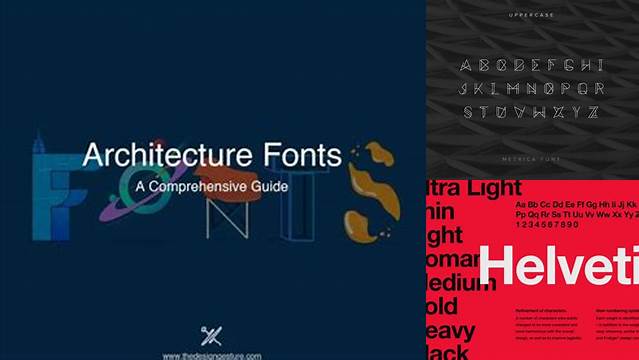
Best Architecture Fonts: Design Guide
Hey guys! Are you ready to dive deep into the world of architecture fonts design? Choosing the right font is crucial for conveying the spirit and intent behind architectural concepts. Whether you're drafting blueprints, creating presentations, or designing marketing materials, the font you select speaks volumes. So, let’s explore how to pick the perfect typeface to represent your architectural vision.
1. Understanding the Role of Fonts in Architectural Design
Architecture fonts design plays a pivotal role in shaping the perception of any architectural project. Think about it: the font you use influences how people interpret the design's stability, modernity, and overall aesthetic. A well-chosen font enhances the visual appeal, while a poorly chosen one can undermine even the most brilliant designs. When selecting architecture fonts design, consider the project's specific requirements and target audience. For example, fonts used for historical renovations will differ significantly from those used for contemporary skyscrapers. The goal is to create a cohesive visual narrative that complements the architectural design and reinforces its underlying message. Remember, your font choices contribute to the overall brand and professionalism, making them an essential aspect of effective communication. When in doubt, consider getting feedback from designers or architects to ensure your architecture fonts design selection aligns with the project’s goals and intended impact. This collaborative approach often leads to better-informed and more impactful decisions, ultimately enhancing the visual presentation of your architectural work.
2. Modern Fonts for Contemporary Architecture
When it comes to architecture fonts design for contemporary buildings, modern fonts are often the go-to choice. These fonts are characterized by their clean lines, geometric shapes, and minimalist aesthetics, reflecting the sleek and innovative nature of modern architectural designs. Opting for a modern font helps reinforce the forward-thinking approach of contemporary architecture, creating a cohesive and visually appealing presentation. When selecting a architecture fonts design, consider how the font interacts with the building's structural elements, such as glass facades, steel beams, and open floor plans. A well-chosen modern font will complement these features, enhancing the overall sense of modernity and sophistication. Popular choices include sans-serif fonts like Helvetica, Futura, and Open Sans, which are known for their legibility and versatility. These fonts work well across various applications, from architectural renderings and presentations to signage and marketing materials. To add a unique touch, experiment with different font weights and styles, such as bold or italic, to create visual interest and emphasize key information. Always ensure the architecture fonts design remains consistent throughout the project to maintain a professional and cohesive image. This attention to detail ensures the font enhances the architectural design rather than detracting from it.
3. Classic Fonts for Historical Architecture
For projects centered around historical architecture, selecting the right architecture fonts design is essential to honor the building's heritage and aesthetic. Classic fonts, characterized by their timeless elegance and traditional serifs, are often the preferred choice. These fonts evoke a sense of history and sophistication, perfectly complementing the intricate details and ornate designs typically found in historical buildings. In architecture fonts design for historical projects, consider fonts like Times New Roman, Garamond, and Baskerville. These typefaces have a long-standing reputation for readability and visual appeal, making them ideal for conveying the historical significance of the building. When choosing a font, ensure it aligns with the specific period and style of the architecture. For example, a font reminiscent of calligraphy may be suitable for a Renaissance-era building, while a more structured serif font could work well for a Georgian-style structure. The right architecture fonts design can enhance the storytelling aspect of the project, bringing attention to its rich history and cultural significance. Moreover, maintaining consistency in font usage across all project materials reinforces the authenticity and historical integrity of the architectural design. Remember, the goal is to create a visual narrative that respects and celebrates the building's past, making the font a crucial element in preserving its legacy.
4. Sans-Serif Fonts in Architecture
Architecture fonts design often leans heavily on sans-serif fonts due to their clean, modern appearance and excellent readability. These fonts, lacking the small decorative strokes (serifs) found in traditional typefaces, offer a streamlined look that complements contemporary architectural styles. Sans-serif fonts are versatile and work well in a variety of applications, from digital presentations to printed materials. When selecting architecture fonts design with sans-serif fonts, consider the overall aesthetic you want to convey. Fonts like Helvetica, Arial, and Open Sans are popular choices for their neutrality and clarity. These fonts are easy to read at various sizes, making them suitable for both headlines and body text. Additionally, sans-serif fonts can evoke a sense of professionalism and efficiency, aligning well with the functional aspects of architectural design. Experiment with different weights and styles within the same font family to create visual hierarchy and emphasize key information. For example, using a bold sans-serif font for headings can draw attention to important sections of a document, while a lighter weight can be used for body text to maintain readability. The key is to ensure the architecture fonts design remains consistent throughout the project, providing a cohesive and visually appealing experience for the audience. By carefully selecting and implementing sans-serif fonts, you can enhance the overall impact of your architectural presentations and marketing materials.
5. Serif Fonts in Architecture
While sans-serif fonts are popular in modern architecture fonts design, serif fonts have a place too, especially when aiming for a classic or traditional feel. Serif fonts, characterized by the small decorative strokes at the end of each letter, add a touch of elegance and formality that can be perfect for certain architectural presentations. Choosing the right architecture fonts design with serifs involves considering the project’s tone and audience. Serif fonts like Times New Roman, Garamond, and Georgia are often associated with sophistication and reliability, making them suitable for projects that require a sense of history or authority. When using serif fonts, pay close attention to readability. While they can look beautiful, they may not be as legible as sans-serif fonts at smaller sizes or on digital screens. Therefore, it’s important to select a font that remains clear and easy to read, even in challenging conditions. Also, think about how the font complements the overall design. A well-chosen serif font can enhance the visual appeal of architectural drawings, presentations, and marketing materials, providing a polished and professional look. The key is to ensure the architecture fonts design aligns with the project’s goals and target audience, creating a cohesive and visually appealing message. By carefully considering these factors, you can effectively use serif fonts to add a touch of class and tradition to your architectural presentations.
6. Display Fonts for Architectural Presentations
In architecture fonts design, display fonts serve as the attention-grabbers, ideal for headings, titles, and other prominent elements in presentations. These fonts are designed to be eye-catching and visually engaging, helping to draw the audience's attention to key information. When selecting architecture fonts design with display fonts, consider the overall aesthetic you want to convey. Display fonts come in a wide range of styles, from bold and modern to elegant and traditional, allowing you to tailor the font to the specific project. It’s crucial to use display fonts sparingly to avoid overwhelming the design. Overusing decorative fonts can make the presentation look cluttered and unprofessional. Instead, focus on using them strategically to highlight important information and create visual interest. When choosing a display font, ensure it complements the other fonts used in the presentation. A harmonious combination of fonts can enhance the overall aesthetic and improve readability. For example, pairing a bold display font with a simple sans-serif font for body text can create a balanced and visually appealing design. The goal of architecture fonts design with display fonts is to create a lasting impression and effectively communicate your message. By carefully selecting and implementing display fonts, you can enhance the visual impact of your architectural presentations and leave a memorable impression on your audience.
7. Narrow Fonts for Space-Saving Designs
Architecture fonts design sometimes demands clever use of space, and that's where narrow fonts come in handy. These fonts, also known as condensed fonts, are designed to fit more text into a smaller area without sacrificing readability. They are particularly useful in architectural drawings, diagrams, and other visual materials where space is limited. When choosing architecture fonts design with narrow fonts, consider factors like legibility and overall aesthetic. While narrow fonts can be a great solution for saving space, they can also be harder to read if not chosen carefully. Look for fonts that maintain a clear and balanced letterform, even when condensed. Popular choices include narrow versions of well-known fonts like Arial, Helvetica, and Roboto. These fonts are designed to be readable at various sizes and in different contexts. When implementing narrow fonts, pay attention to kerning and letter spacing. Adjusting these settings can improve readability and prevent the text from looking cramped. Also, consider the overall design of the document. Narrow fonts can create a sense of efficiency and modernity, but they should be used sparingly to avoid overwhelming the design. The key to successful architecture fonts design with narrow fonts is to balance space-saving with readability. By carefully selecting and implementing narrow fonts, you can create visually appealing and informative architectural materials that make the most of limited space.
8. Bold Fonts for Emphasis in Architecture
In architecture fonts design, bold fonts are your go-to for making a statement and emphasizing key information. These fonts, with their heavier strokes, draw the eye and create a strong visual impact, perfect for headings, titles, and important callouts in architectural presentations. When selecting architecture fonts design with bold fonts, consider the overall hierarchy of your design. Bold fonts are most effective when used sparingly to highlight specific elements and guide the viewer's attention. Overusing bold fonts can make the design look cluttered and diminish their impact. Pairing bold fonts with lighter weight fonts can create a clear visual contrast and improve readability. For example, using a bold font for headings and a regular font for body text can help viewers quickly scan and understand the information. When choosing a bold font, ensure it complements the other fonts used in the design. A harmonious combination of fonts can enhance the overall aesthetic and improve communication. Also, consider the context in which the font will be used. Bold fonts can convey a sense of authority and importance, making them suitable for highlighting critical details in architectural drawings and specifications. The ultimate goal of architecture fonts design with bold fonts is to create a clear and impactful message. By carefully selecting and implementing bold fonts, you can enhance the visual appeal of your architectural materials and ensure that important information stands out.
9. Light Fonts for Subtlety in Design
When architecture fonts design calls for a more understated approach, light fonts can be an excellent choice. These fonts, with their delicate and airy appearance, offer a sense of subtlety and elegance that can enhance the overall aesthetic of architectural presentations. Light fonts are perfect for body text, captions, and other supporting elements where readability and a gentle visual impact are desired. When selecting architecture fonts design with light fonts, consider the background and context in which the font will be used. Light fonts can be harder to read on busy or dark backgrounds, so it’s important to ensure sufficient contrast. Also, pay attention to the size and spacing of the text. Light fonts may require more generous letter spacing to maintain readability, especially at smaller sizes. Pairing light fonts with bolder fonts can create a balanced and visually appealing design. For example, using a light font for body text and a bold font for headings can establish a clear visual hierarchy and guide the viewer's attention. When choosing a light font, ensure it complements the other fonts used in the design. A harmonious combination of fonts can enhance the overall aesthetic and improve communication. The key to successful architecture fonts design with light fonts is to balance subtlety with readability. By carefully selecting and implementing light fonts, you can create visually appealing and informative architectural materials that convey a sense of sophistication and refinement.
10. Italics for Emphasis and Style
In the realm of architecture fonts design, italics offer a versatile tool for adding emphasis and style to your text. Italics, characterized by their slanted appearance, can draw attention to specific words or phrases, distinguish quotes or citations, and add a touch of elegance to architectural presentations. When selecting architecture fonts design with italics, consider the context and purpose of the text. Italics are most effective when used sparingly to highlight key information and avoid overusing them, which can make the design look cluttered and diminish their impact. Pairing italics with regular weight fonts can create a clear visual contrast and improve readability. For example, using italics for quotations or technical terms can help viewers quickly identify and understand the information. When choosing an italic font, ensure it complements the other fonts used in the design. A harmonious combination of fonts can enhance the overall aesthetic and improve communication. Also, consider the overall tone of the presentation. Italics can convey a sense of sophistication and refinement, making them suitable for highlighting key details in architectural drawings and specifications. The ultimate goal of architecture fonts design with italics is to add emphasis and style without sacrificing readability. By carefully selecting and implementing italics, you can enhance the visual appeal of your architectural materials and ensure that important information stands out.
11. Handwritten Fonts in Architectural Concepts
When architecture fonts design aims to capture a personal or artistic touch, handwritten fonts can be a compelling choice. These fonts mimic the style of hand-drawn lettering, adding a unique and informal feel to architectural presentations and concept designs. While handwritten fonts can be visually appealing, they should be used judiciously to maintain professionalism and readability. Selecting architecture fonts design with handwritten fonts requires careful consideration of the project’s aesthetic goals and target audience. Handwritten fonts can convey creativity, spontaneity, and a human touch, making them suitable for concept presentations, mood boards, and informal communications. However, they may not be appropriate for formal documents or technical drawings where clarity and precision are paramount. When implementing handwritten fonts, pay attention to legibility. Some handwritten fonts can be difficult to read, especially at smaller sizes. Choose fonts that maintain a clear and balanced letterform to ensure the message is easily understood. Pairing handwritten fonts with simpler, more legible fonts can create a balanced and visually appealing design. For example, using a handwritten font for headings and a sans-serif font for body text can add personality without sacrificing readability. The key to successful architecture fonts design with handwritten fonts is to balance creativity with clarity. By carefully selecting and implementing handwritten fonts, you can add a unique and personal touch to your architectural materials while maintaining a professional and readable design.
12. Geometric Fonts for Precise Designs
Architecture fonts design often benefits from the precision and clarity of geometric fonts. These fonts are characterized by their clean lines, simple shapes, and mathematical construction, making them a perfect match for the structured nature of architectural drawings and diagrams. Geometric fonts convey a sense of order, efficiency, and modernity, aligning well with contemporary architectural styles. When selecting architecture fonts design with geometric fonts, consider the overall aesthetic you want to convey. Geometric fonts are typically sans-serif, meaning they lack the small decorative strokes found in traditional serif fonts. This absence of serifs contributes to their clean and minimalist appearance. Popular geometric fonts include Futura, Avant Garde, and Century Gothic. These fonts are known for their readability and versatility, making them suitable for both headings and body text. When implementing geometric fonts, pay attention to kerning and letter spacing. Adjusting these settings can improve readability and prevent the text from looking cramped. Also, consider the overall design of the document. Geometric fonts can create a sense of precision and professionalism, but they should be used sparingly to avoid overwhelming the design. The key to successful architecture fonts design with geometric fonts is to balance precision with readability. By carefully selecting and implementing geometric fonts, you can create visually appealing and informative architectural materials that convey a sense of order and modernity.
13. Slab-Serif Fonts for Strong Visual Impact
For projects where a strong visual impact is needed, architecture fonts design can leverage the power of slab-serif fonts. These fonts, characterized by their thick, block-like serifs, command attention and create a bold, authoritative presence. Slab-serif fonts are particularly effective for headings, titles, and branding materials, where they can help to establish a strong visual identity. When selecting architecture fonts design with slab-serif fonts, consider the overall tone you want to convey. Slab-serif fonts can evoke a sense of strength, stability, and tradition, making them suitable for projects that require a sense of authority. Popular slab-serif fonts include Rockwell, Courier New, and Museo Slab. These fonts are known for their readability and distinctiveness, making them stand out in a variety of contexts. When implementing slab-serif fonts, pay attention to the spacing and alignment of the text. The thick serifs can sometimes create visual clutter, so it’s important to ensure the text is well-spaced and aligned for optimal readability. Also, consider the overall design of the document. Slab-serif fonts can create a strong visual hierarchy, but they should be used sparingly to avoid overwhelming the design. The key to successful architecture fonts design with slab-serif fonts is to balance visual impact with readability. By carefully selecting and implementing slab-serif fonts, you can create visually compelling architectural materials that command attention and convey a sense of strength and authority.
14. Calligraphy Fonts for Elegant Touch
If your architecture fonts design requires a touch of elegance and sophistication, calligraphy fonts can be a stunning choice. These fonts mimic the flowing strokes of hand-lettered calligraphy, adding a sense of artistry and refinement to architectural presentations. Calligraphy fonts are perfect for invitations, announcements, and other materials where a touch of elegance is desired. When selecting architecture fonts design with calligraphy fonts, consider the project’s overall aesthetic and target audience. Calligraphy fonts can convey a sense of tradition, luxury, and craftsmanship, making them suitable for high-end residential projects, historic preservation efforts, and special events. However, they may not be appropriate for technical drawings or formal documents where clarity and precision are paramount. When implementing calligraphy fonts, pay attention to legibility. Some calligraphy fonts can be difficult to read, especially at smaller sizes. Choose fonts that maintain a clear and balanced letterform to ensure the message is easily understood. Pairing calligraphy fonts with simpler, more legible fonts can create a balanced and visually appealing design. The key to successful architecture fonts design with calligraphy fonts is to balance elegance with readability. By carefully selecting and implementing calligraphy fonts, you can add a touch of sophistication and artistry to your architectural materials while maintaining a professional and readable design.
15. Vintage Fonts for Retro Aesthetics
Architecture fonts design that aims for a retro or nostalgic feel can greatly benefit from vintage fonts. These fonts evoke the charm and character of past eras, adding a unique and distinctive touch to architectural presentations. Vintage fonts are perfect for projects that celebrate historical styles or aim to create a sense of nostalgia. When selecting architecture fonts design with vintage fonts, consider the specific era you want to emulate. Vintage fonts come in a wide range of styles, from Art Deco and Mid-Century Modern to Victorian and Grunge. Choose fonts that accurately reflect the historical period you are referencing to create an authentic and visually compelling design. Implementing vintage fonts requires careful attention to detail. Some vintage fonts can be more decorative and less legible than modern fonts, so it’s important to ensure they remain readable, especially in body text. Pairing vintage fonts with simpler, more contemporary fonts can create a balanced and visually appealing contrast. Consider using vintage fonts for headings and titles, while using a clean, modern font for the body text to maintain readability. The key to successful architecture fonts design with vintage fonts is to strike a balance between historical accuracy and modern readability. This ensures your design is both visually appealing and easy to understand.
16. Condensed Fonts for Limited Spaces
In architectural drawings and presentations, space can often be a premium. That's where architecture fonts design with condensed fonts comes to the rescue. These fonts are designed to be narrower than standard fonts, allowing you to fit more text into limited spaces without sacrificing readability. Condensed fonts are especially useful for labeling plans, sections, and elevations, where precision and clarity are essential. When selecting architecture fonts design with condensed fonts, prioritize legibility. While condensed fonts can save space, some may become difficult to read if they are too narrow or tightly spaced. Look for condensed fonts that maintain a clear and distinct letterform, even when compressed. Test the font at various sizes to ensure it remains legible in different contexts. Also, consider the overall design of the document. Condensed fonts can sometimes appear cramped or crowded if used excessively. Use them strategically to maximize space without sacrificing visual appeal. The goal is to create a design that is both informative and easy to read. By carefully selecting and implementing condensed fonts, you can make the most of limited space and present your architectural information clearly and effectively.
17. Extended Fonts for Unique Designs
On the flip side, architecture fonts design also benefits from extended fonts in certain scenarios. Unlike condensed fonts, extended fonts are wider than standard fonts, creating a broader and more expansive appearance. Extended fonts can add a unique and distinctive touch to architectural presentations, especially when used sparingly for headings or titles. When selecting architecture fonts design with extended fonts, consider the overall aesthetic you want to achieve. Extended fonts can convey a sense of openness, spaciousness, or grandeur. They work well in designs that emphasize horizontal lines or large-scale elements. However, use them judiciously to avoid overwhelming the design. Extended fonts can take up more space than standard fonts, so it’s important to ensure they fit comfortably within the layout. Pair extended fonts with narrower or more compact fonts to create a balanced and visually appealing contrast. Use extended fonts for headings or titles to draw attention, and use a standard or condensed font for the body text to maintain readability. The key to successful architecture fonts design with extended fonts is to balance visual impact with practicality. By carefully selecting and implementing extended fonts, you can add a unique and memorable touch to your architectural designs.
18. Script Fonts for Artistic Expressions
To infuse architecture fonts design with an artistic and personalized touch, script fonts can be an excellent choice. These fonts mimic the fluid strokes of handwriting, adding a sense of creativity and individuality to your designs. Script fonts are perfect for invitations, announcements, and other materials where a personal touch is desired. However, use them sparingly and with caution, as they can be less legible than standard fonts. When selecting architecture fonts design with script fonts, prioritize legibility. Some script fonts can be very decorative and difficult to read, especially at smaller sizes. Look for script fonts that maintain a clear and distinct letterform, even with their flourishes and embellishments. Test the font at various sizes to ensure it remains legible in different contexts. Also, consider the overall tone of the design. Script fonts can convey a sense of elegance, romance, or playfulness, depending on their style. Choose a script font that aligns with the project’s overall aesthetic and target audience. Pairing script fonts with simpler, more legible fonts can create a balanced and visually appealing contrast. The key to successful architecture fonts design with script fonts is to balance artistic expression with readability. By carefully selecting and implementing script fonts, you can add a personal and memorable touch to your architectural designs.
19. Pixel Fonts for Retro Gaming Vibes
For a unique and nostalgic twist, architecture fonts design can incorporate pixel fonts, reminiscent of retro video games and early computer displays. These fonts are characterized by their blocky, pixelated appearance, adding a distinctive and playful touch to architectural presentations. Pixel fonts are perfect for projects that embrace retro aesthetics or aim to create a sense of fun and whimsy. When selecting architecture fonts design with pixel fonts, consider the context and purpose of the design. Pixel fonts are best suited for small amounts of text, such as headings, labels, or decorative elements. They can be difficult to read in large blocks of text, so avoid using them for body text. Also, consider the overall tone of the design. Pixel fonts can convey a sense of nostalgia, playfulness, or technical innovation. Choose a pixel font that aligns with the project’s overall aesthetic and target audience. Pairing pixel fonts with simpler, more legible fonts can create a balanced and visually appealing contrast. The key to successful architecture fonts design with pixel fonts is to balance novelty with readability. By carefully selecting and implementing pixel fonts, you can add a unique and memorable touch to your architectural designs.
20. Rounded Fonts for Friendliness
In architecture fonts design, if you're aiming to convey a sense of friendliness and approachability, rounded fonts are your best bet. These fonts feature soft, curved edges that create a warm and inviting feel, making them perfect for projects that emphasize human connection and community engagement. Rounded fonts are often used in designs for residential buildings, schools, and healthcare facilities. When selecting architecture fonts design with rounded fonts, consider the overall aesthetic and target audience. Rounded fonts can convey a sense of playfulness, informality, or comfort. Choose a rounded font that aligns with the project’s overall tone and intended message. Be mindful of legibility. While rounded fonts are generally easy to read, some may become less clear if they are too stylized or tightly spaced. Test the font at various sizes to ensure it remains legible in different contexts. Pairing rounded fonts with more angular or geometric fonts can create a balanced and visually appealing contrast. Use rounded fonts for headings or key messages, and use a more neutral font for body text to maintain readability. The key to successful architecture fonts design with rounded fonts is to balance friendliness with clarity. By carefully selecting and implementing rounded fonts, you can create designs that are both welcoming and easy to understand.
21. Distressed Fonts for Urban Grit
For architectural projects aiming to capture the raw, edgy vibe of urban environments, distressed fonts can be an excellent choice in architecture fonts design. These fonts feature intentionally imperfect edges, worn textures, and a gritty aesthetic, evoking a sense of history, decay, and authenticity. Distressed fonts are perfect for designs that celebrate industrial heritage, urban renewal, or street art culture. When selecting architecture fonts design with distressed fonts, consider the specific context and purpose of the design. Distressed fonts are best suited for headings, titles, and decorative elements, where their unique texture can add visual interest. Avoid using them for large blocks of text, as they can become difficult to read. Also, consider the overall tone of the design. Distressed fonts can convey a sense of ruggedness, rebellion, or authenticity. Choose a distressed font that aligns with the project’s overall aesthetic and target audience. Pairing distressed fonts with cleaner, more modern fonts can create a striking contrast. The key to successful architecture fonts design with distressed fonts is to balance visual impact with readability. By carefully selecting and implementing distressed fonts, you can add a touch of urban grit and character to your architectural designs.
22. Variable Fonts for Adaptable Designs
Architecture fonts design is constantly evolving, and variable fonts represent a significant step forward in typographic flexibility. Variable fonts allow you to adjust various aspects of a typeface, such as weight, width, and slant, along a continuous spectrum, rather than being limited to predefined styles. This level of control enables you to create highly customized and responsive designs that adapt to different screen sizes, contexts, and user preferences. When selecting architecture fonts design with variable fonts, consider the specific design requirements of the project. Variable fonts are particularly useful for creating dynamic and interactive interfaces, where the typeface can respond to user input or environmental conditions. However, they can also be used to fine-tune the appearance of a typeface for print or static designs. Ensure that the software and hardware you are using support variable fonts. Not all applications and devices are compatible with variable font technology, so it’s important to check compatibility before implementing variable fonts in your designs. The key to successful architecture fonts design with variable fonts is to leverage their flexibility to create designs that are both visually appealing and functionally effective. By carefully selecting and implementing variable fonts, you can enhance the adaptability and responsiveness of your architectural designs.
23. Geometric Sans-Serif for Modern Simplicity
Combining the clarity of sans-serif fonts with the precision of geometric shapes, architecture fonts design often utilizes geometric sans-serif typefaces to achieve a modern and minimalist aesthetic. These fonts are characterized by their clean lines, simple forms, and mathematical construction, making them a perfect match for contemporary architectural styles. Geometric sans-serif fonts convey a sense of order, efficiency, and sophistication. When selecting architecture fonts design with geometric sans-serif fonts, consider the overall tone you want to convey. These fonts are often associated with technology, innovation, and precision, making them suitable for designs that emphasize these qualities. Look for fonts that maintain a consistent and balanced letterform, with clear and distinct shapes. Avoid fonts that are too stylized or decorative, as they can detract from the overall simplicity of the design. Pairing geometric sans-serif fonts with other geometric elements, such as lines, shapes, and patterns, can create a cohesive and visually appealing design. The key to successful architecture fonts design with geometric sans-serif fonts is to balance simplicity with visual interest. By carefully selecting and implementing geometric sans-serif fonts, you can create designs that are both modern and timeless.
24. Humanist Sans-Serif for Approachability
While geometric sans-serif fonts offer a sense of precision, architecture fonts design may sometimes require a more approachable and friendly feel. That’s where humanist sans-serif fonts come in. These fonts incorporate subtle variations in stroke weight and letterform, mimicking the natural rhythm of handwriting and creating a more organic and welcoming appearance. Humanist sans-serif fonts are perfect for designs that prioritize human connection and readability. When selecting architecture fonts design with humanist sans-serif fonts, consider the overall context and purpose of the design. Humanist fonts are often used in designs for educational institutions, healthcare facilities, and community centers, where a warm and inviting atmosphere is desired. Look for fonts that maintain a clear and legible letterform, even with their subtle variations. Avoid fonts that are too ornate or stylized, as they can detract from the overall readability of the design. Pairing humanist sans-serif fonts with softer colors, organic shapes, and natural textures can enhance the overall sense of warmth and approachability. The key to successful architecture fonts design with humanist sans-serif fonts is to balance friendliness with professionalism. By carefully selecting and implementing humanist sans-serif fonts, you can create designs that are both welcoming and easy to engage with.
25. Monospace Fonts for Technical Accuracy
In architecture fonts design, especially when dealing with technical drawings, coding, or data visualization, monospace fonts offer unparalleled clarity and precision. These fonts feature characters that occupy the same horizontal space, creating a uniform grid-like appearance that is essential for aligning code, tables, and other structured data. Monospace fonts ensure that information is presented clearly and consistently, minimizing the risk of misinterpretation. When selecting architecture fonts design with monospace fonts, consider the specific application and requirements of the design. Monospace fonts are often used in architectural software, programming environments, and data analysis tools, where accuracy and readability are paramount. Look for fonts that maintain a clear and distinct letterform, even with their uniform width. Avoid fonts that are too stylized or decorative, as they can detract from the overall clarity of the design. Pairing monospace fonts with other monospace elements, such as lines, boxes, and symbols, can reinforce the overall sense of precision and structure. The key to successful architecture fonts design with monospace fonts is to balance functionality with aesthetics. While monospace fonts are primarily used for their technical accuracy, they can also be incorporated into more creative designs to add a sense of order and precision. The architecture fonts design has evolved. Be sure to keep up.
26. Retro Fonts for Nostalgic Designs
To transport your audience back in time, architecture fonts design can employ retro fonts, evoking the styles and aesthetics of past eras. These fonts capture the essence of different decades, from the Art Deco elegance of the 1920s to the groovy vibes of the 1970s, adding a nostalgic and distinctive touch to your designs. Retro fonts are perfect for projects that celebrate historical periods, vintage aesthetics, or cultural icons. When selecting architecture fonts design with retro fonts, consider the specific era you want to emulate and the overall message you want to convey. Each decade has its own unique typographic style, so it’s important to choose a font that accurately reflects the period you are referencing. Do your research to identify popular fonts and design trends from the chosen era, and select a font that aligns with these characteristics. Be mindful of legibility. Some retro fonts can be more decorative and less readable than modern fonts, so it’s important to ensure they remain legible, especially in body text. Pairing retro fonts with modern fonts can create a balanced and visually appealing contrast, allowing you to capture the essence of the past while maintaining contemporary readability. The architecture fonts design is critical to its impact. The key to successful architecture fonts design with retro fonts is to strike a balance between historical accuracy and modern readability, ensuring that your design is both visually appealing and easy to understand.
27. Slab Serif Fonts for Bold Statements
When you need to make a architecture fonts design with a bold and authoritative statement, slab serif fonts are the go-to choice. These fonts are characterized by their thick, block-like serifs, which command attention and create a strong visual impact. Slab serif fonts convey a sense of strength, stability, and confidence, making them perfect for headings, titles, and branding materials. When selecting architecture fonts design with slab serif fonts, consider the overall tone you want to convey and the message you want to communicate. Slab serif fonts are often used in designs for industries such as construction, manufacturing, and engineering, where a sense of reliability and expertise is essential. Ensure that the font is legible and well-spaced, as the thick serifs can sometimes create visual clutter. Pairing slab serif fonts with simpler, more modern fonts can create a balanced and visually appealing contrast, allowing you to emphasize your key message while maintaining overall readability. Make a bold architecture fonts design! Remember, the key to successful architecture fonts design with slab serif fonts is to balance visual impact with readability, ensuring that your message is both attention-grabbing and easy to understand.
28. Layered Fonts for Depth and Dimension
To add depth and dimension to your typographic designs, architecture fonts design can explore the creative possibilities of layered fonts. These fonts consist of multiple layers or elements that can be stacked on top of each other to create a unique and visually dynamic effect. Layered fonts offer a high degree of customization, allowing you to adjust the colors, textures, and spacing of each layer to achieve a wide range of looks. When selecting architecture fonts design with layered fonts, consider the overall design concept and the message you want to convey. Layered fonts are perfect for creating eye-catching headings, logos, and branding elements, where their unique visual appeal can make a lasting impression. Be mindful of legibility. Some layered fonts can become too complex or cluttered if they are overused, so it’s important to ensure that the underlying text remains readable. Experiment with different color combinations, layering techniques, and shadow effects to create a visually compelling design that enhances the overall message. Consider the architecture fonts design and it's impact on the design world. The key to successful architecture fonts design with layered fonts is to balance visual complexity with readability, ensuring that your design is both visually stunning and easy to understand.
29. Brush Fonts for Handcrafted Appeal
When architecture fonts design calls for a handcrafted, artisanal touch, brush fonts offer a unique and expressive solution. These fonts mimic the strokes of a brush or pen, creating a natural, organic feel that is perfect for designs that celebrate creativity, craftsmanship, or personal expression. Brush fonts convey a sense of warmth, authenticity, and human connection. When selecting architecture fonts design with brush fonts, consider the specific style and character of the font. Brush fonts come in a wide range of styles, from elegant calligraphy to bold graffiti, so it’s important to choose a font that aligns with the overall design concept. Look for fonts that maintain a clear and legible letterform, even with their expressive strokes. Avoid fonts that are too stylized or decorative, as they can detract from the overall readability of the design. Brush fonts can be a game changer for architecture fonts design! Pairing brush fonts with simpler, more geometric fonts can create a balanced and visually appealing contrast. The key to successful architecture fonts design with brush fonts is to balance visual expressiveness with readability, ensuring that your design is both aesthetically pleasing and easy to engage with.
30. Gradients and Overlays on Fonts for Visual Interest
To add a modern twist to your architecture fonts design, experiment with gradients and overlays on your fonts to create visual interest. Gradients can add depth and dimension to your text, transitioning from one color to another smoothly. Overlays, on the other hand, can add texture, patterns, or images to your fonts, creating a unique and eye-catching effect. When selecting architecture fonts design with gradients and overlays, consider the overall design concept and the message you want to communicate. Gradients and overlays are perfect for creating focal points, highlighting key information, or adding a sense of visual flair to your designs. Ensure that the gradients and overlays are subtle and tasteful, as too much visual complexity can detract from the overall readability of the design. Experiment with different color combinations, blending modes, and opacity levels to achieve the desired effect. The use of architecture fonts design can set a design apart from others. Pairing gradient or overlay fonts with simpler, more geometric fonts can create a balanced and visually appealing contrast. The key to successful architecture fonts design with gradients and overlays is to enhance the visual appeal of the text without sacrificing readability. By carefully selecting and implementing gradients and overlays, you can create designs that are both visually stunning and easy to engage with.